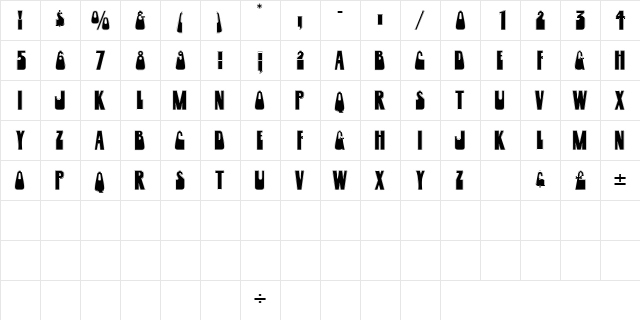
WoogieDisplayOutlineCapsSSK Regular
Design Context for WoogieDisplayOutlineCapsSSK Typeface
WoogieDisplayOutlineCapsSSK brings ornamental detail and strong personality to headlines and identities, where visual impact matters more than quiet functionality.
Font Pairing: Pair with a clean neutral sans-serif for body copy to let WoogieDisplayOutlineCapsSSK's character lead without overwhelming the composition.
Pro Tip: Use WoogieDisplayOutlineCapsSSK exclusively at display sizes — it was designed to be seen, not read at length. Let a neutral companion handle body copy.